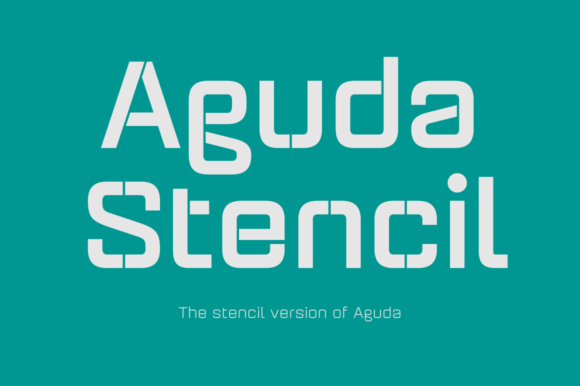
Bringing Stencil Magic to Your Designs
Remember the moment when you stumbled upon the perfect font to elevate your design project? The one that made everything fall into place and brought your vision to life? For designers, this ‘aha’ moment is a treasure, and the Aguda Stencil Family Font is one such treasure waiting to be discovered.
Designed by Pablo Balcells for Graviton Font Foundry in 2014, the Aguda Stencil Family Font is the stencil version of the Aguda font family, comprising 16 styles that cater to various design needs. Its versatility and unique characteristics make it a valuable addition to any designer’s toolkit.
Whether you’re working on a large-scale project or a small-scale print job, the Aguda Stencil Family Font’s two main styles – “Stencil 1” and “Stencil 2” – offer the perfect solution, providing a narrow stem for big sizes and a wide stem for small sizes. This font is a must-have for designers who crave precision and flexibility in their work.
Aguda Stencil Family Font Key Features
- Font Family: Aguda Stencil is a sans-serif font family designed for stencil typography.
- Font Size: Aguda Stencil is available in multiple font sizes, ranging from 8pt to 72pt, making it suitable for a wide range of design projects.
- Resolution: Optimized for high-resolution displays (Retina-ready), ensuring crisp and clear typography in digital designs.
- Unique Characteristics: Aguda Stencil’s distinctive stencil design and clean lines make it perfect for industrial, technical, and modern designs, while its legibility ensures it’s suitable for body text and headings.
- Language Support: Aguda Stencil supports a wide range of languages, including Latin, Cyrillic, and Greek scripts, making it a versatile font for global design projects.
Aguda Stencil Family Font Review
Overall, I’d say the Aguda Stencil Family Font is a solid choice for designers looking for a unique, industrial feel. ✨ Here are some of the things that work well:
- Unique aesthetic – Aguda Stencil Family Font has a distinctive, industrial look that sets it apart from other fonts.
- Multi-language support – Aguda Stencil Family Font supports a wide range of languages, making it a great choice for international projects.
- Limited font sizes – While the font looks great at larger sizes, it can appear a bit pixelated at smaller sizes.
- No bold or italic weights – While this might not be a problem for all projects, it can limit the font’s versatility.
Overall, I’d recommend Aguda Stencil Family Font to designers looking for a unique, industrial feel. While it has some limitations, it’s a solid choice for projects that require a distinctive aesthetic.
Use the Aguda Stencil Family Font for:
- Industrial or tech-related designs.
- Casual or informal designs.
- Titles or headings that require a modern and edgy feel.
Remember to pair the Aguda Stencil Family Font with other fonts that complement its unique style.
Alternatives to Aguda Stencil Family Font for Designers
1. **Montserrat Stencil Font**
Montserrat Stencil Font is a modern stencil font that is perfect for creating bold and edgy designs. It has a geometric structure and a sleek, urban feel. Use it for titles, headings, and any design where you want to add a touch of modernity.
Comparison: Montserrat Stencil Font is more geometric and modern than Aguda Stencil Family Font, which has a more distressed and vintage feel. Montserrat Stencil Font is ideal for digital designs, while Aguda Stencil Family Font is better suited for print materials.
The Aguda Stencil Family Font is suitable for use in a variety of applications, including:
- Corporate branding and identity
- Product packaging and labeling
- Editorial and publishing content
It is recommended to use the font in sizes ranging from 12pt to 24pt for optimal readability. Additionally, the font can be paired with other sans-serif fonts for a clean and modern look.